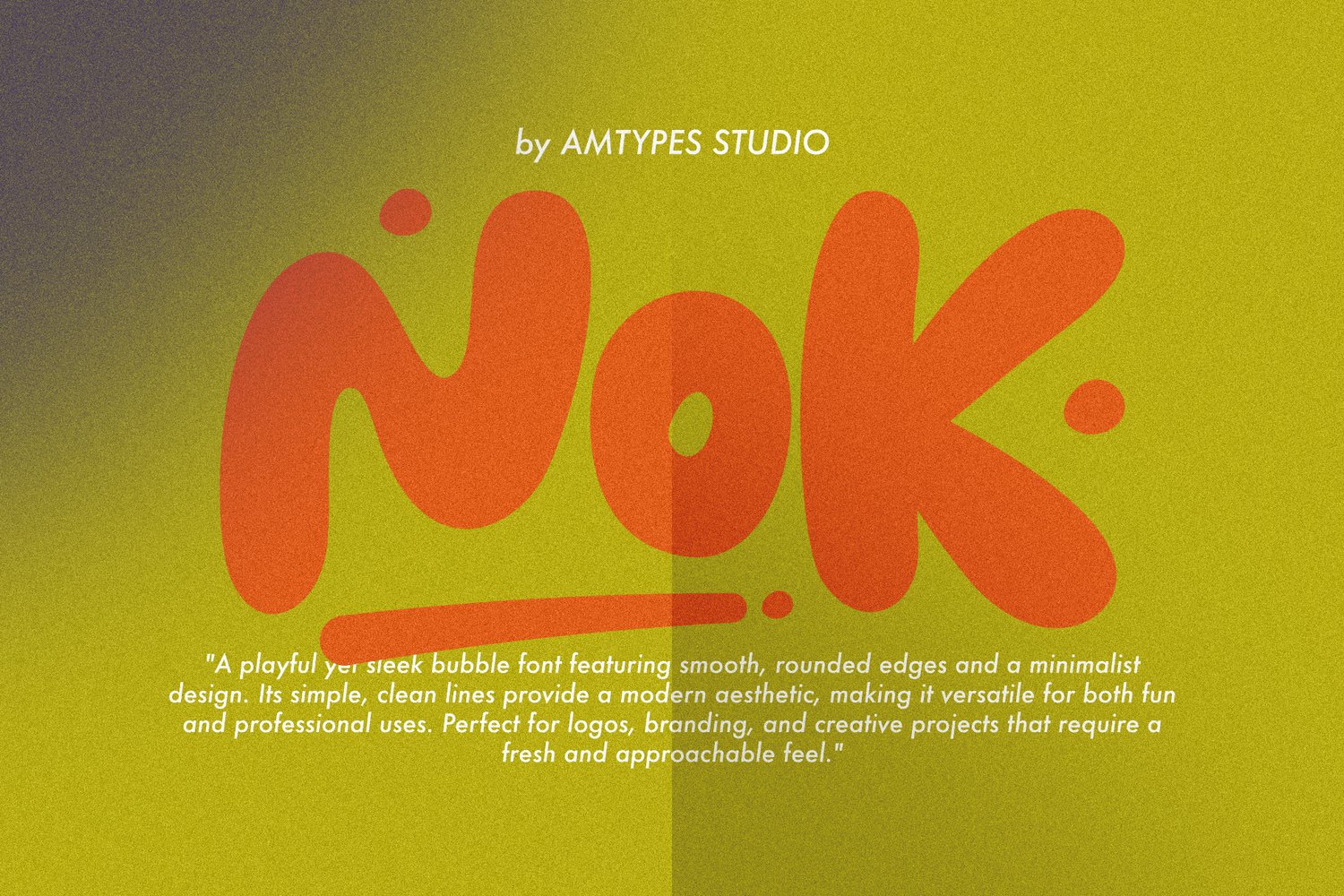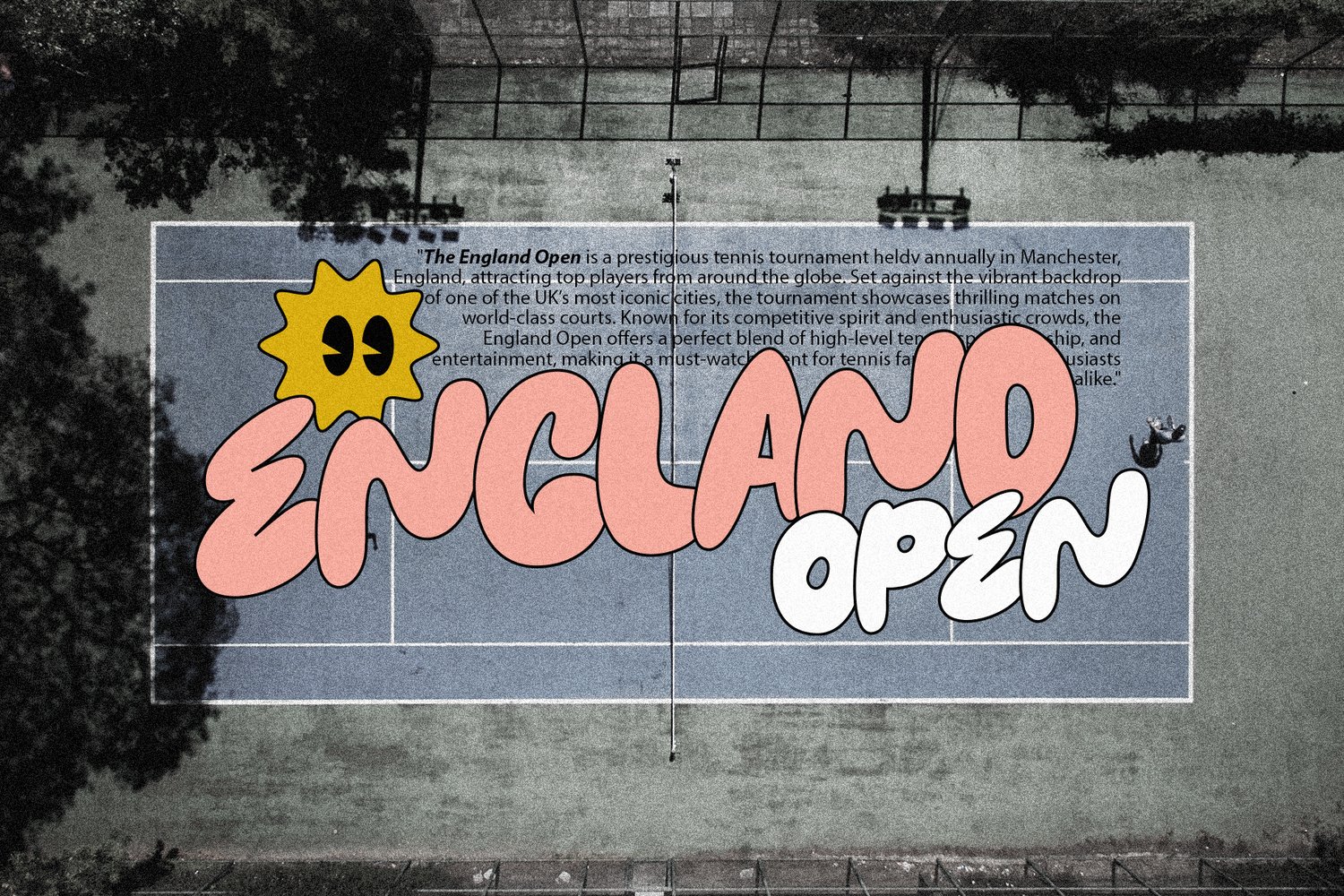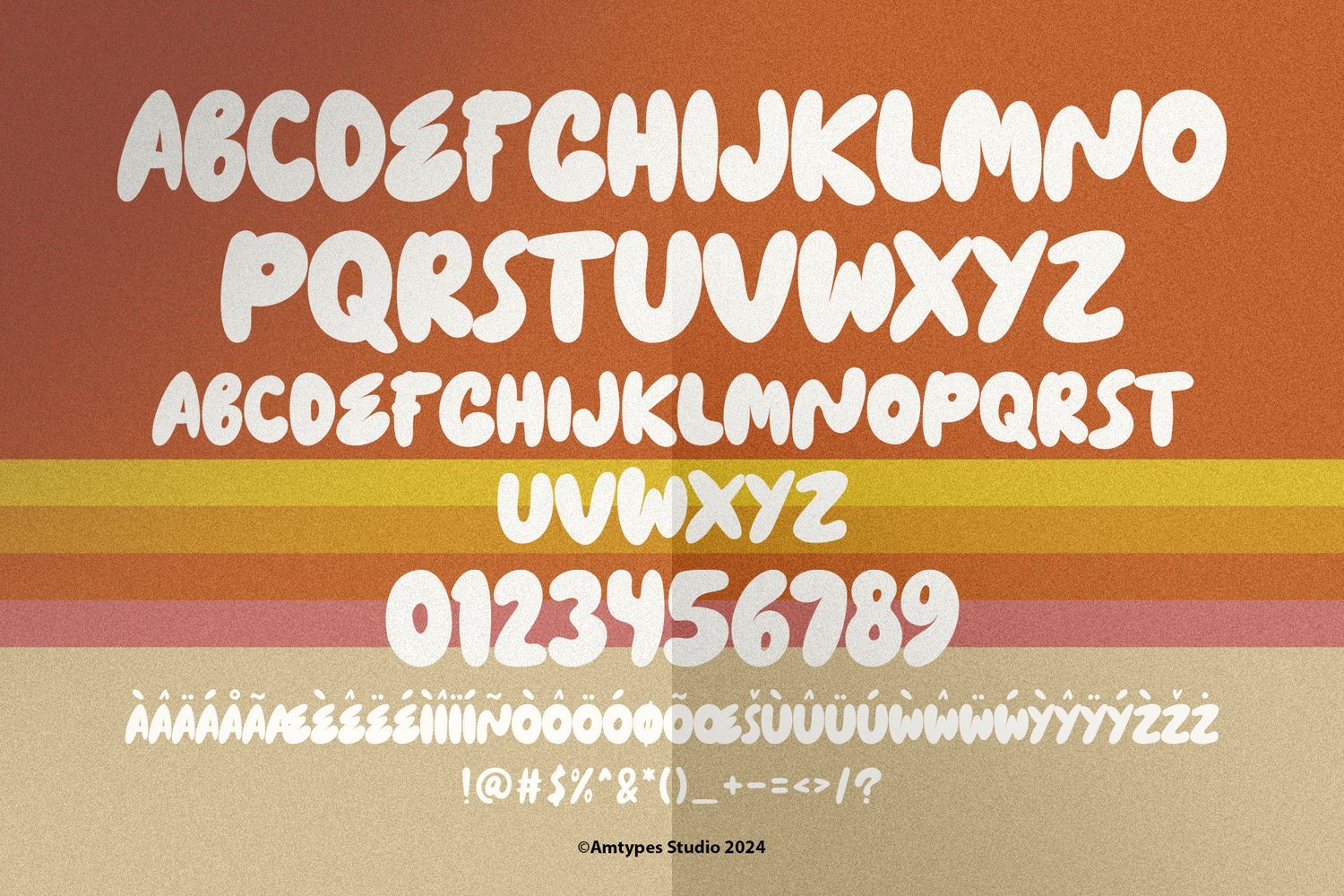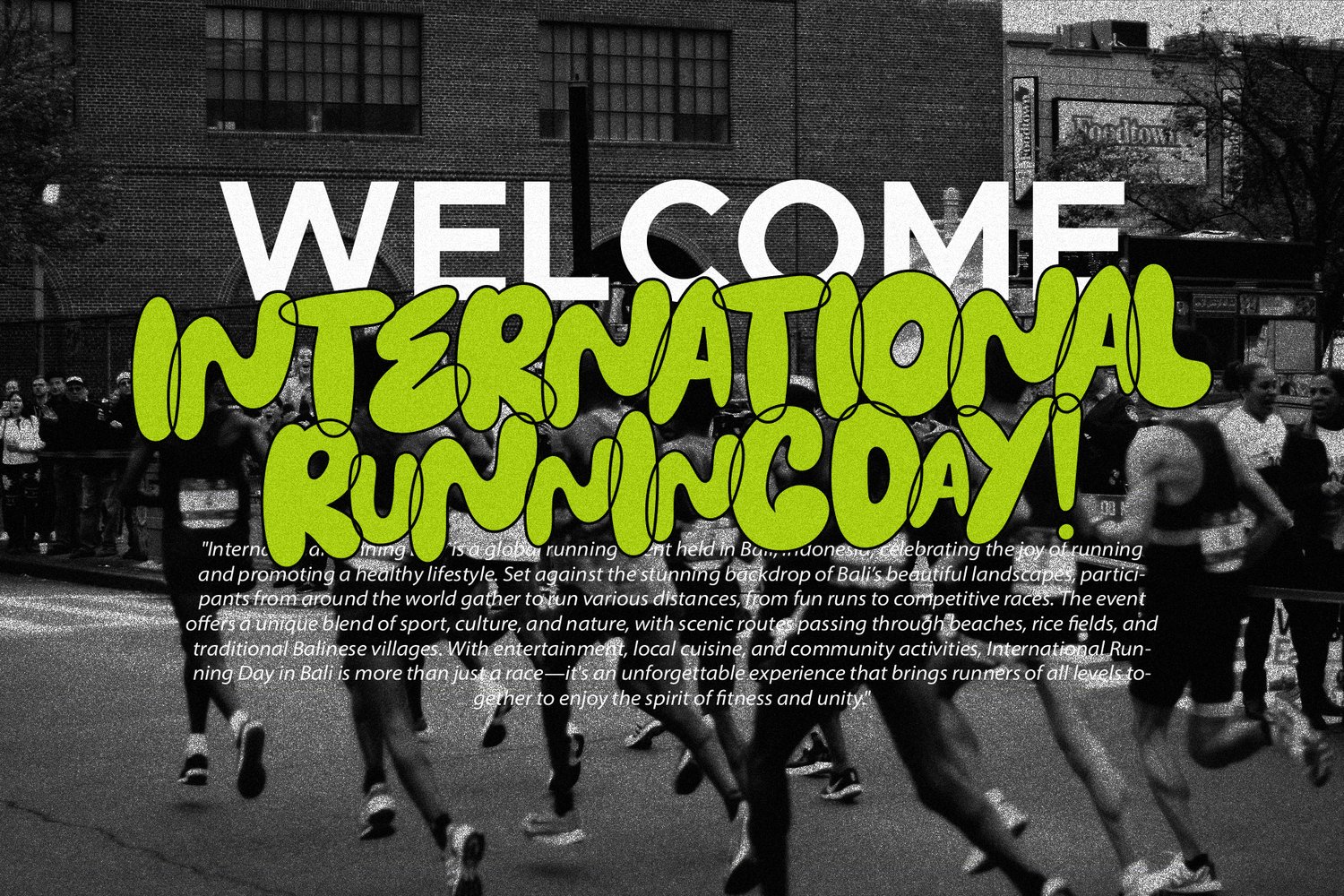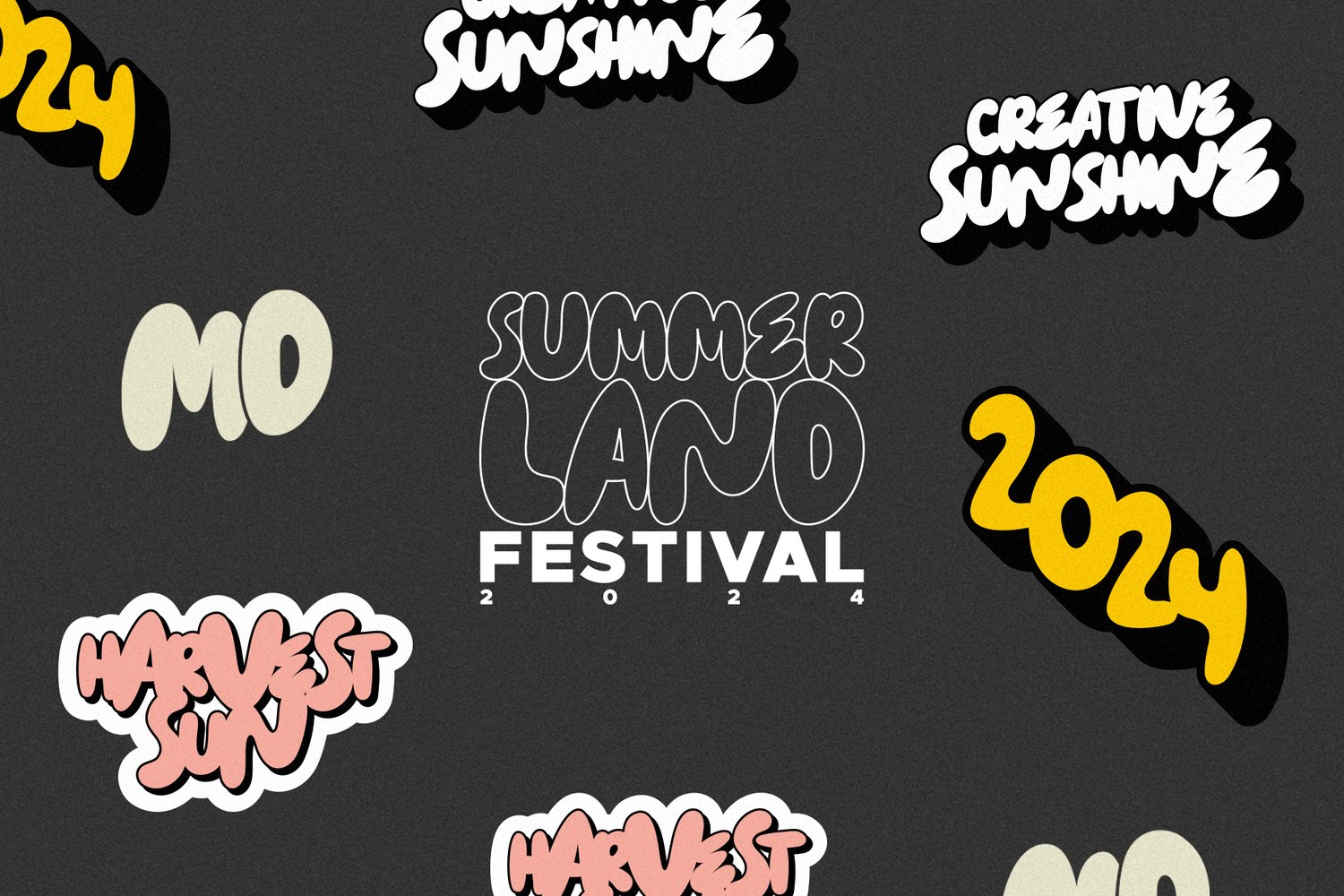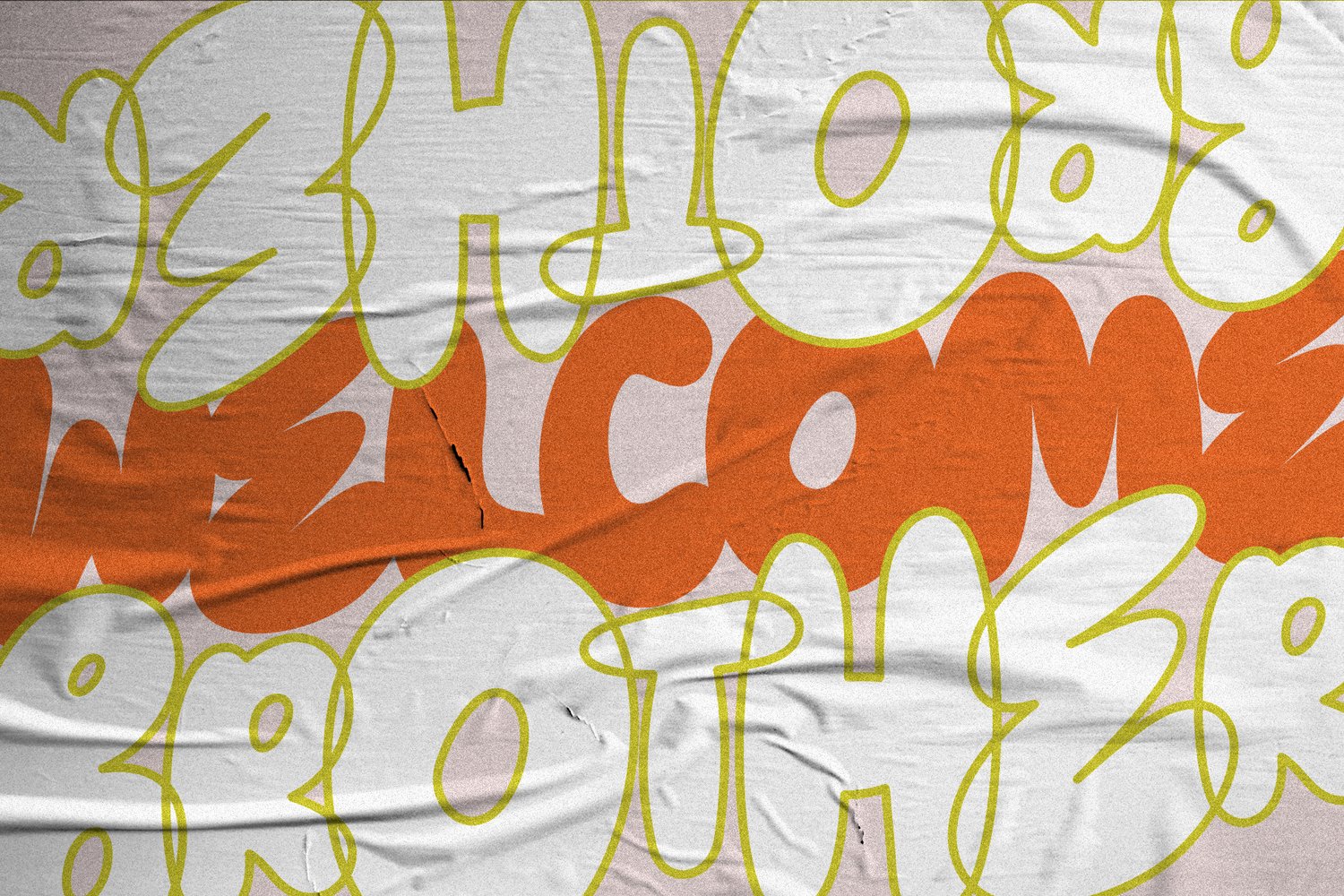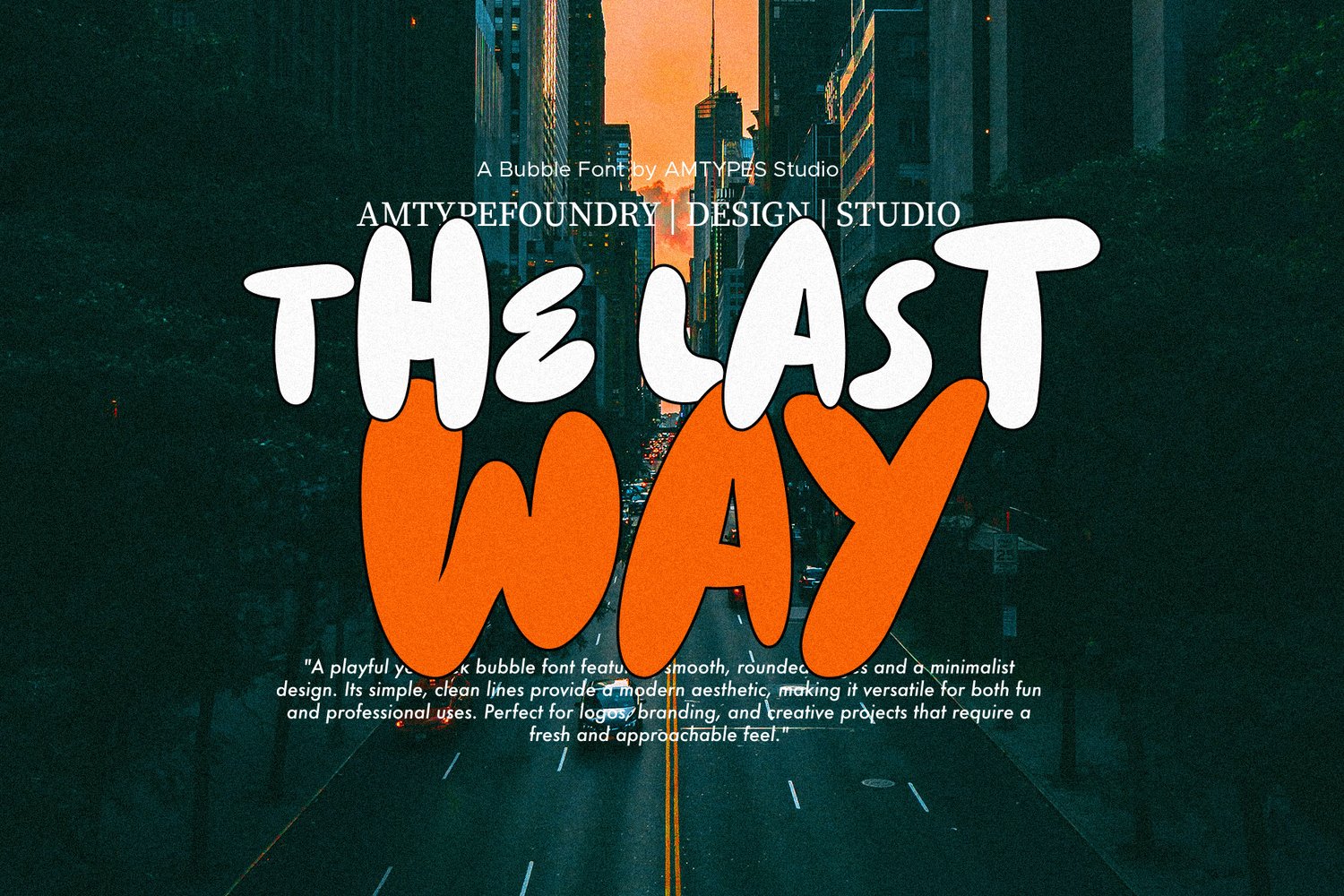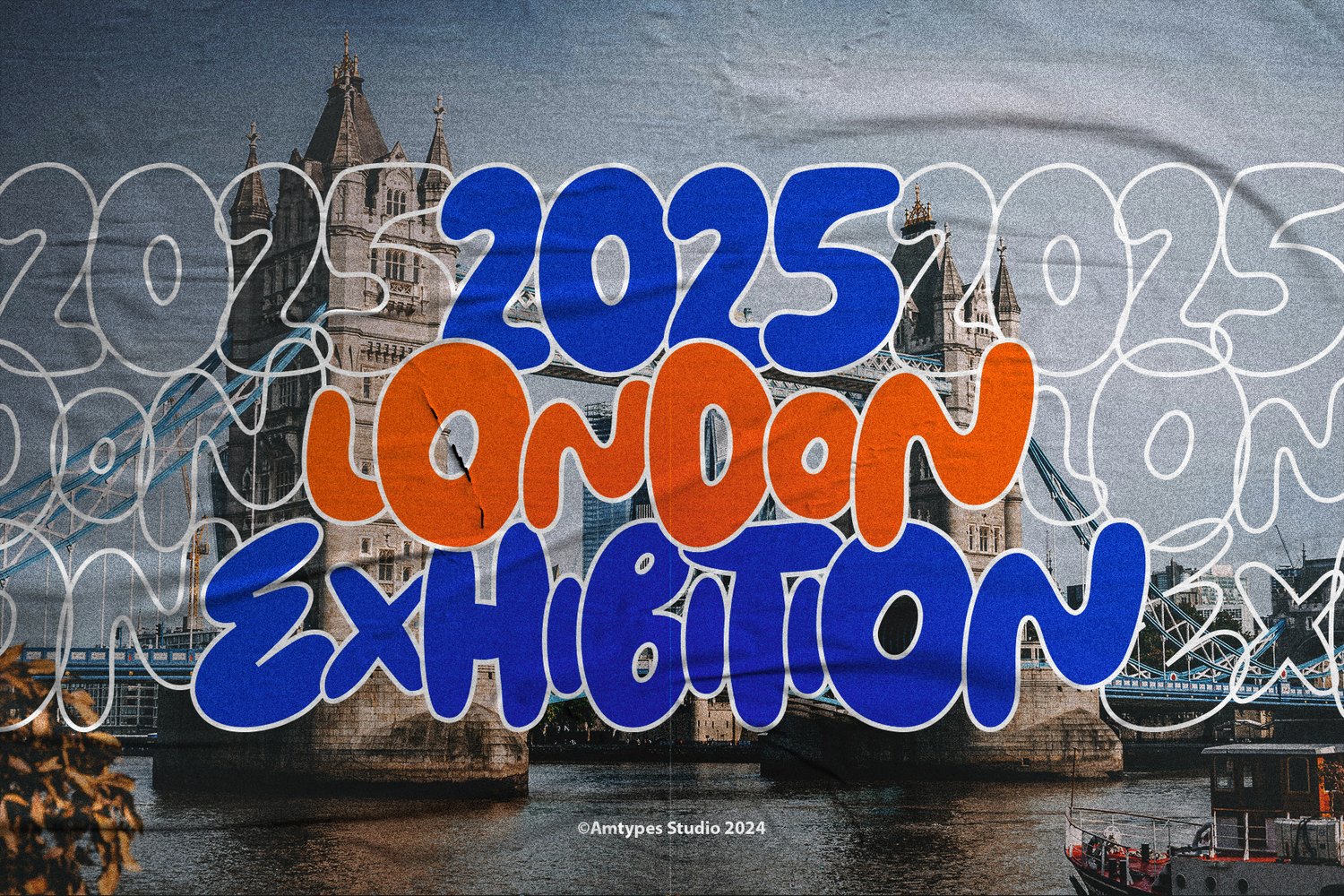
Nok Font
We are excited to introduce Nok, a fresh new font designed with simplicity, cleanliness, and a modern twist on the classic bubble style. Nok features rounded edges and soft curves that bring a playful yet sophisticated touch to any design. Perfect for logos, headlines, posters, or any creative project that calls for a friendly and contemporary look, Nok combines effortless readability with a unique personality.